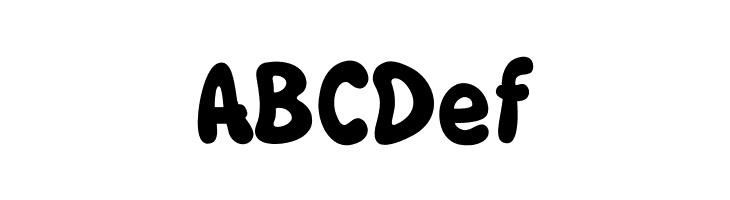
Race Fever Pen PERSONAL Font
- Font: Race Fever Pen PERSONAL
( Fonts by Thomas O`Callaghan - www.tomocallaghan.co.uk )
A whimsical, hand-drawn font with irregular, artistic strokes.